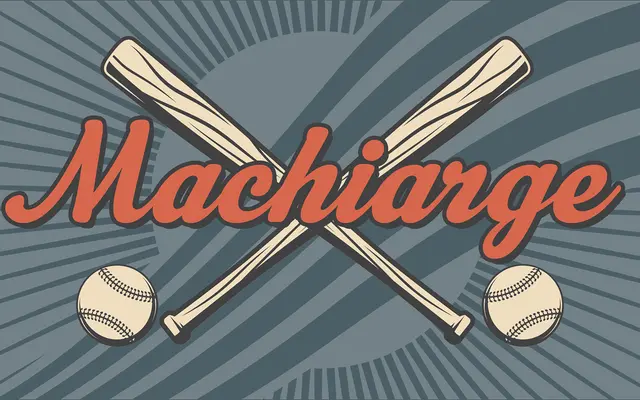
Machiarge
A baseball-style brush script drawn from mid-20th-century American sports and cinema lettering traditions.
Loose, energetic brush strokes recall the hand-lettered signage of American baseball culture and retro cinema title cards. The single style balances informal energy with period charm, making it well-suited to sports branding, poster work and packaging that calls for nostalgic American flair. Dharma Type list it among their best-sellers.
A brush script with baseball lettering characteristics, drawing on mid-20th-century American vernacular sign-painting and sports typography traditions.